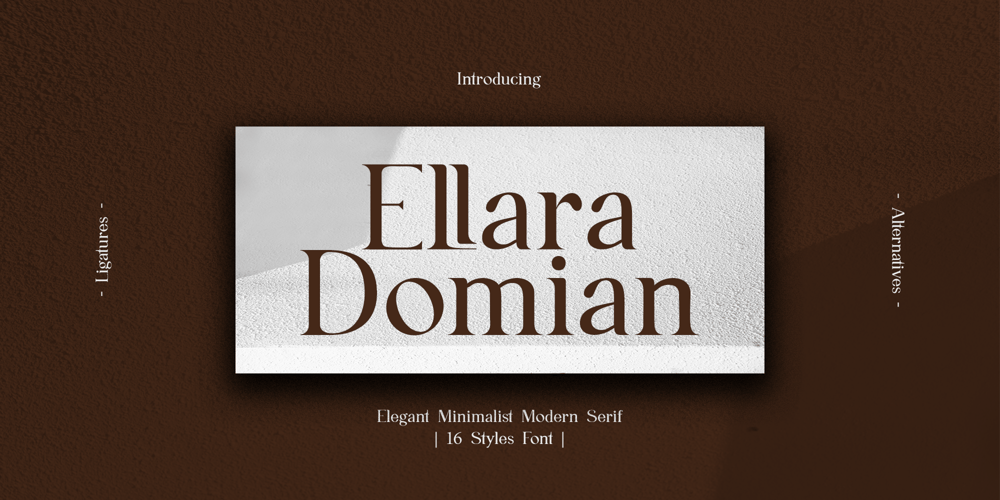
Ellara Domian Font Family was designed by Frederik Aristaputra and published by Creatifont Studio. Ellara Domian contains 16 styles and family package options. Ellara Domian is a captivating serif font that exudes a sense of refined elegance and minimalist beauty. Its clean lines and understated sophistication make it perfect for projects that require a touch of luxury and timeless appeal.A SUMMARY OF WHAT’S INCLUDED: Standard Character A-Z, a-z, 0-9, Punctuation & symbols Thin, Extra Light, Light, Regular, Medium, Semi bold, Bold, Extrabold Style Italic on each style Various Alternates Lots of Ligatures Multilingual Support Works on PC & Mac Simple installation Accessible in Adobe Creative Suite (Ai, Ps, Id, etc.) even work on Microsoft Word. PUA Encoded Characters – Fully accessible without additional design software. ———————————————————————————————————-🌟If you come across any issues or notice anything we might have overlooked while using this product, please feel free to reach out to us. We greatly value your feedback as it helps us enhance and refine our products. Thank you!